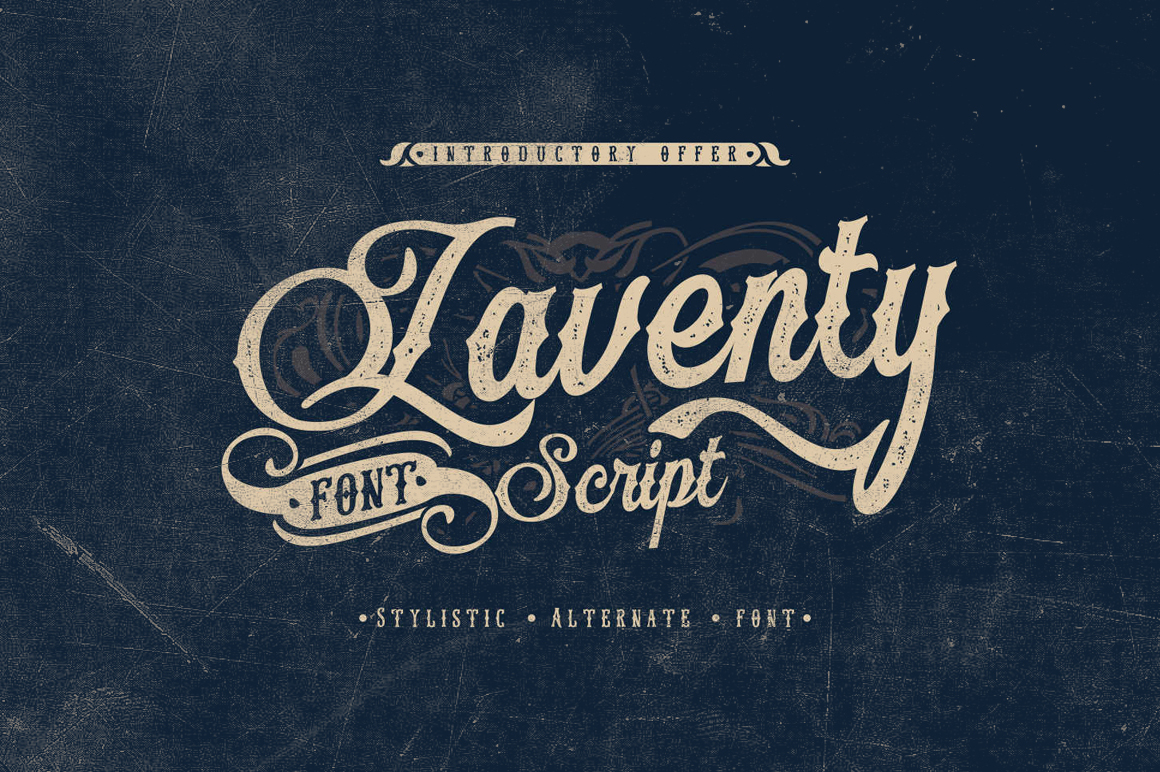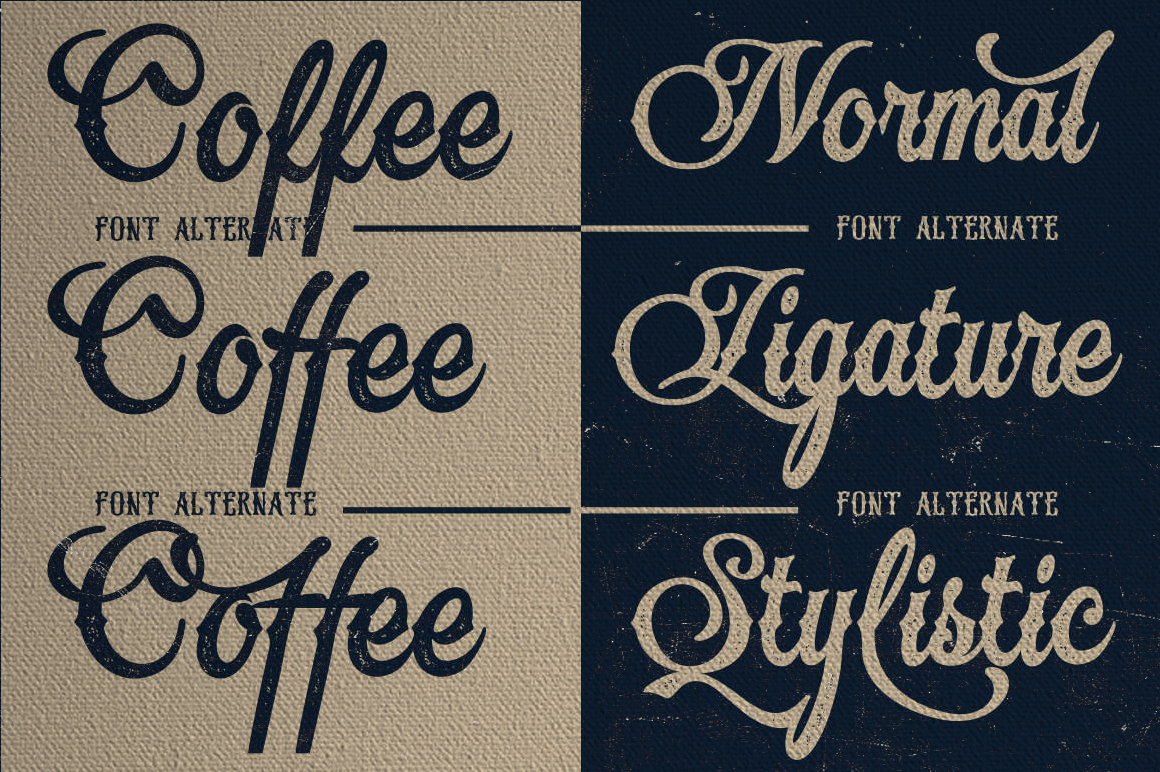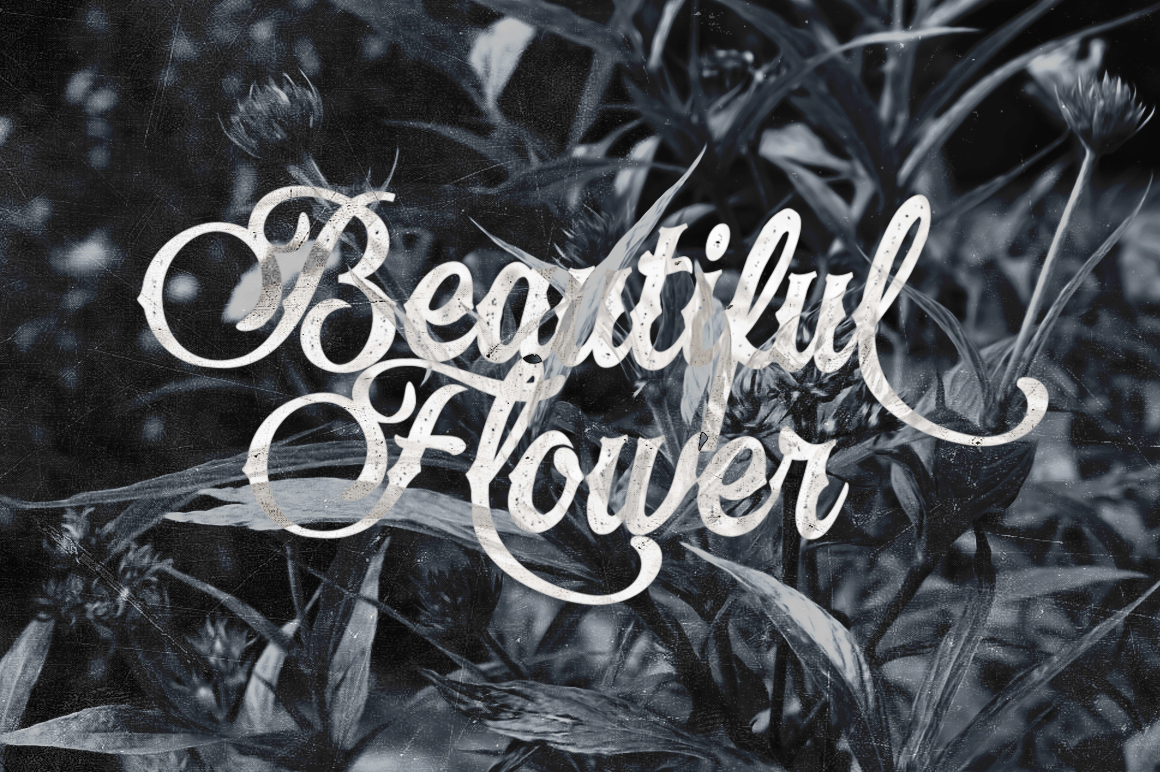
Laventy Script Font
About Laventy Script Font
Laventy Script is a stunning script font with a blackletter file. It comes with a bonus font: Archer!
These 2 lovely fonts are perfect to combine in your designs. Both offer a vintage style.